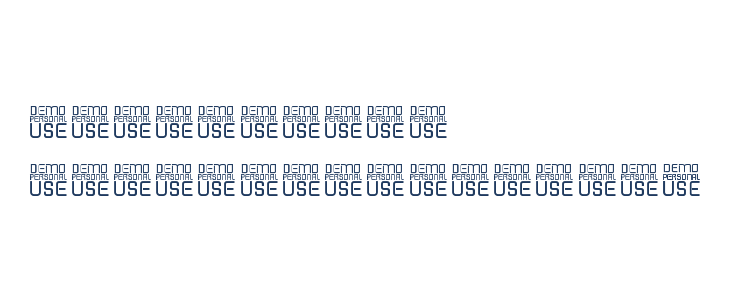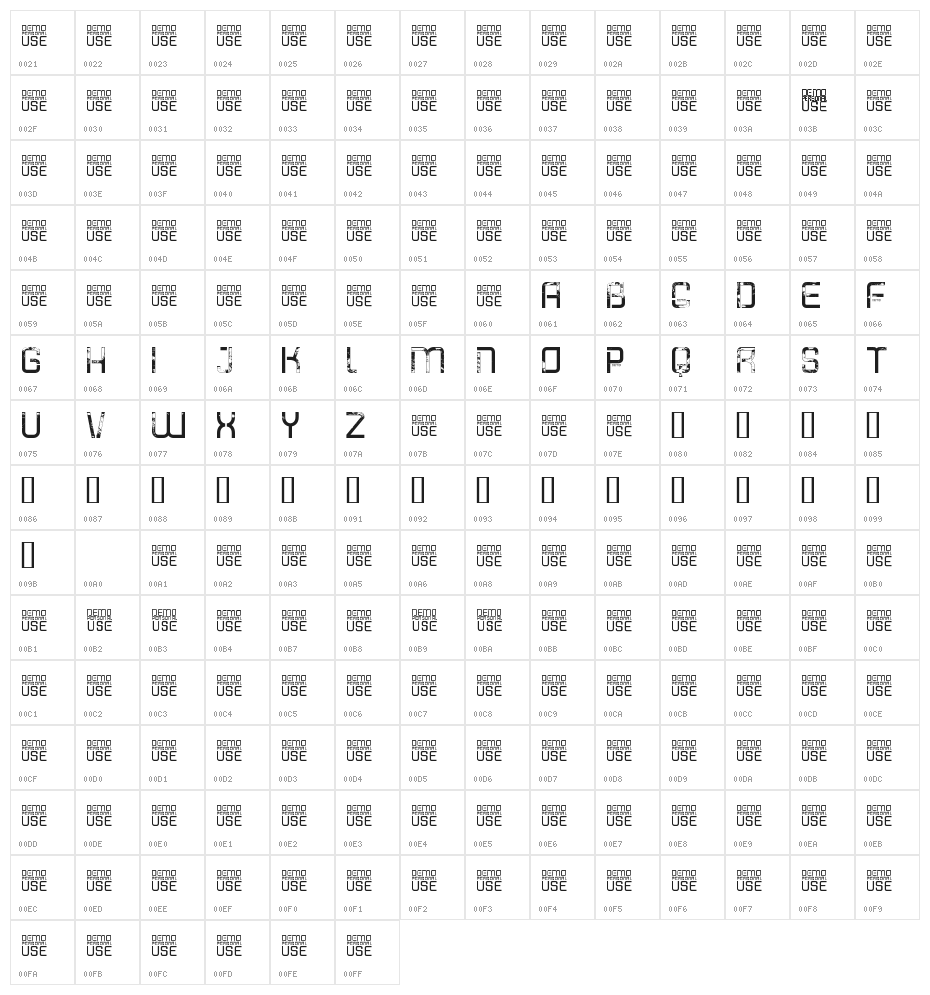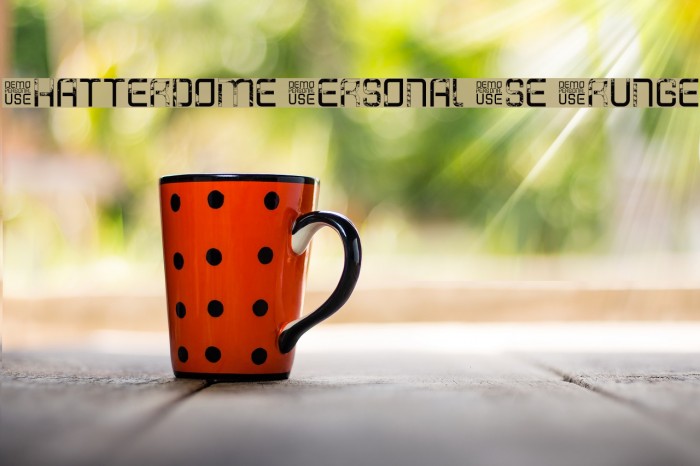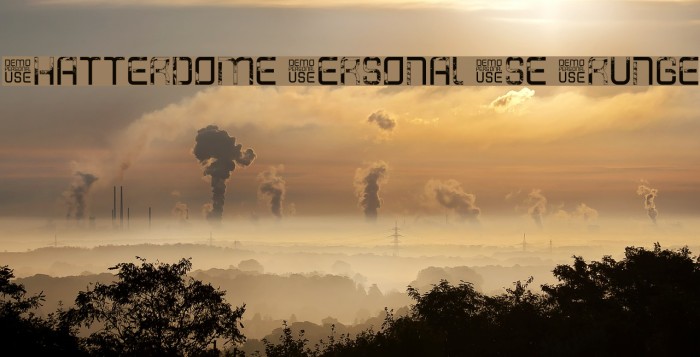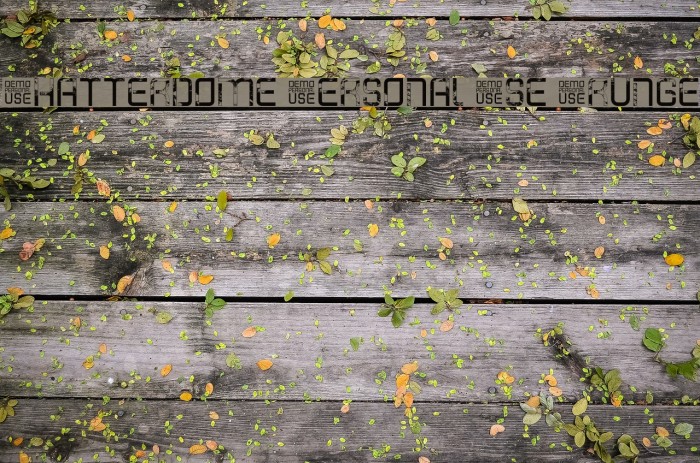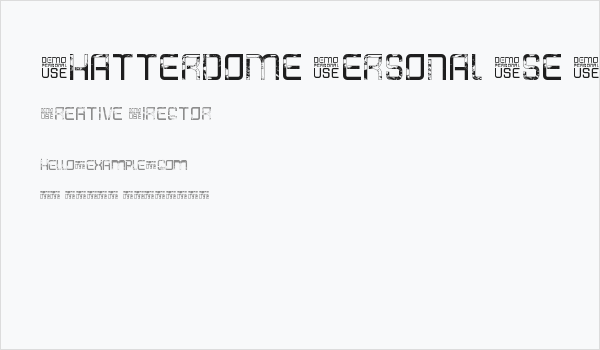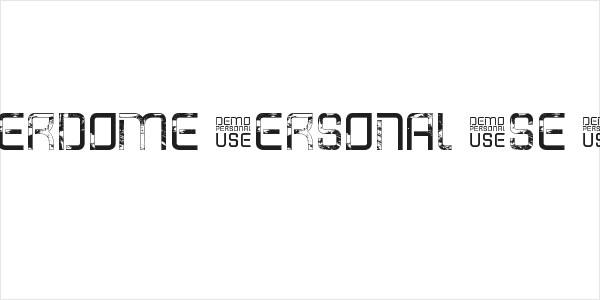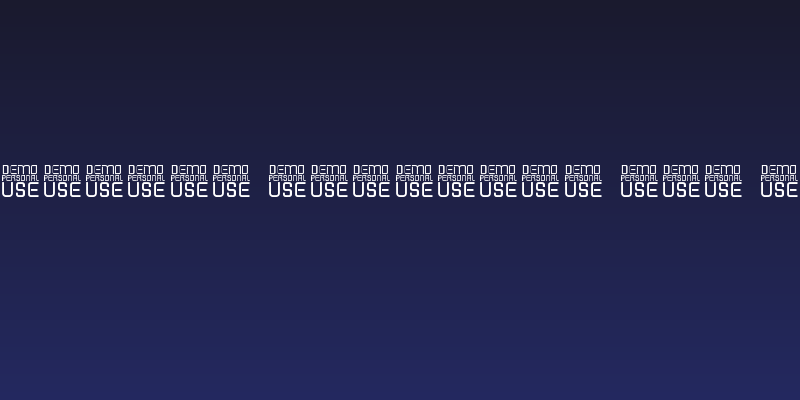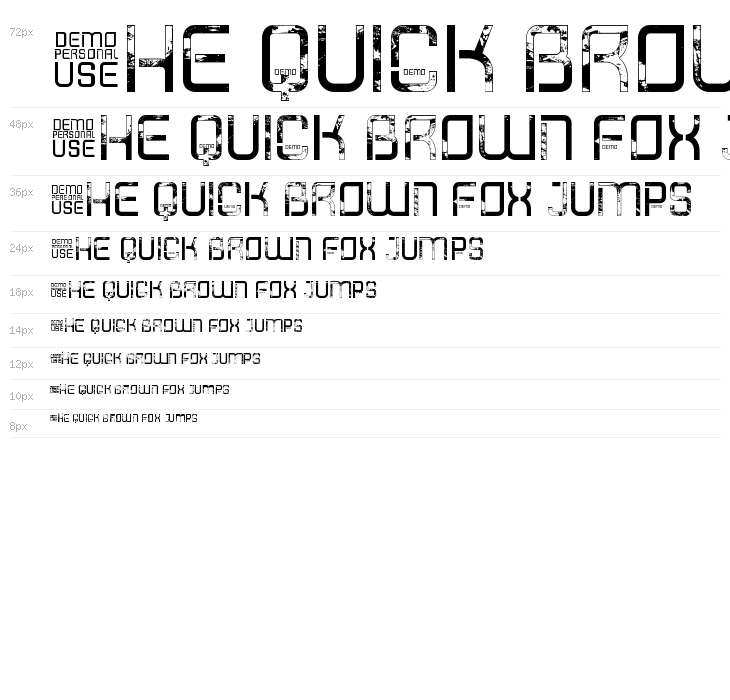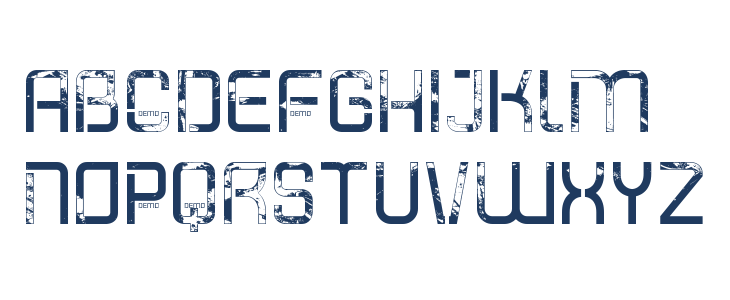
Shatterdome Personal Use Grunge Font
Shatterdome Personal Use Grunge Description
This font features a bold, industrial design with a grunge texture that gives it a distressed, worn appearance. The uppercase letters are uniformly structured with a block-like form, while the grunge effect adds a unique, rugged character to each letter. The lowercase letters maintain the same style, ensuring consistency throughout the typeface. The numbers and special characters are designed to match the overall aesthetic, making this font ideal for projects that require a strong, edgy look. The font's distinct style is perfect for creating impactful headlines, posters, and branding materials that need a touch of grit and personality.
| Overall Style | Grunge, Industrial |
| Use Case | Headlines, Posters, Branding |
| Proposed Projects | Ideal for posters, album covers, branding, and any design needing a gritty, industrial edge. |